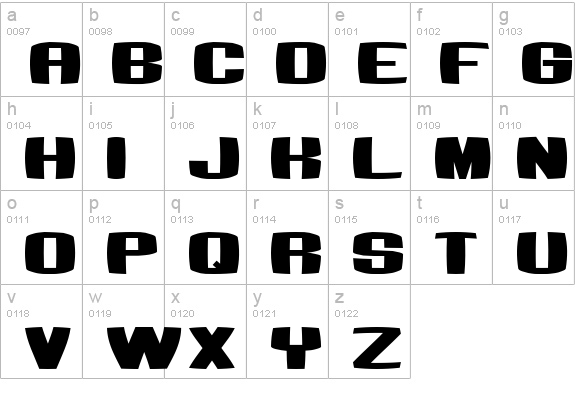
Bumbastika Font Details
Bumbastika font is a charming and whimsical typeface that exudes a playful and creative vibe. Its unique letterforms are sure to make any design stand out with a touch of fun and personality. The rounded edges and quirky details give Bumbastika a friendly and approachable look that is perfect for a variety of projects. This delightful font is not only visually appealing but also incredibly versatile, making it suitable for a wide range of design applications, from branding and packaging to social media graphics and invitations. Whether you're looking to add a touch of whimsy to your next project or simply want to inject some fun into your designs, Bumbastika has got you covered. Best of all, Bumbastika font is completely free to download at FontsMarket.com, allowing you to unleash your creativity without breaking the bank. So why wait? Download Bumbastika today and let your imagination run wild with this charming and playful typeface.